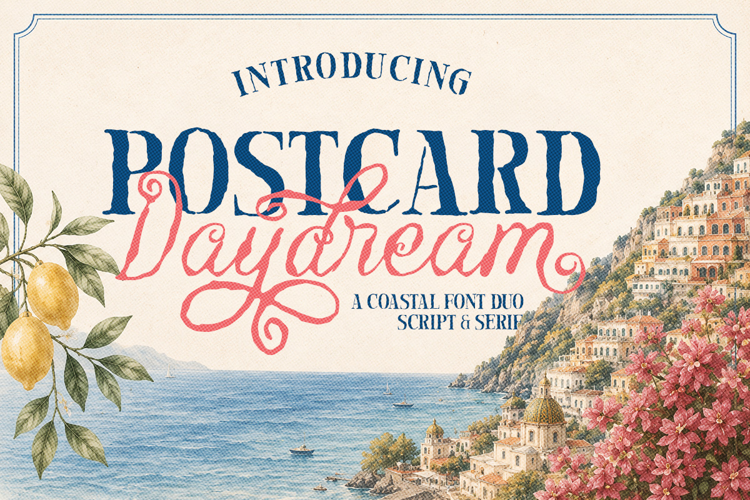
Postcard Daydream Serif Font
Script Style
Serif Style
Postcard Daydream is a charming font duo inspired by sunny coastlines, handwritten postcards, and slow summer days by the sea.